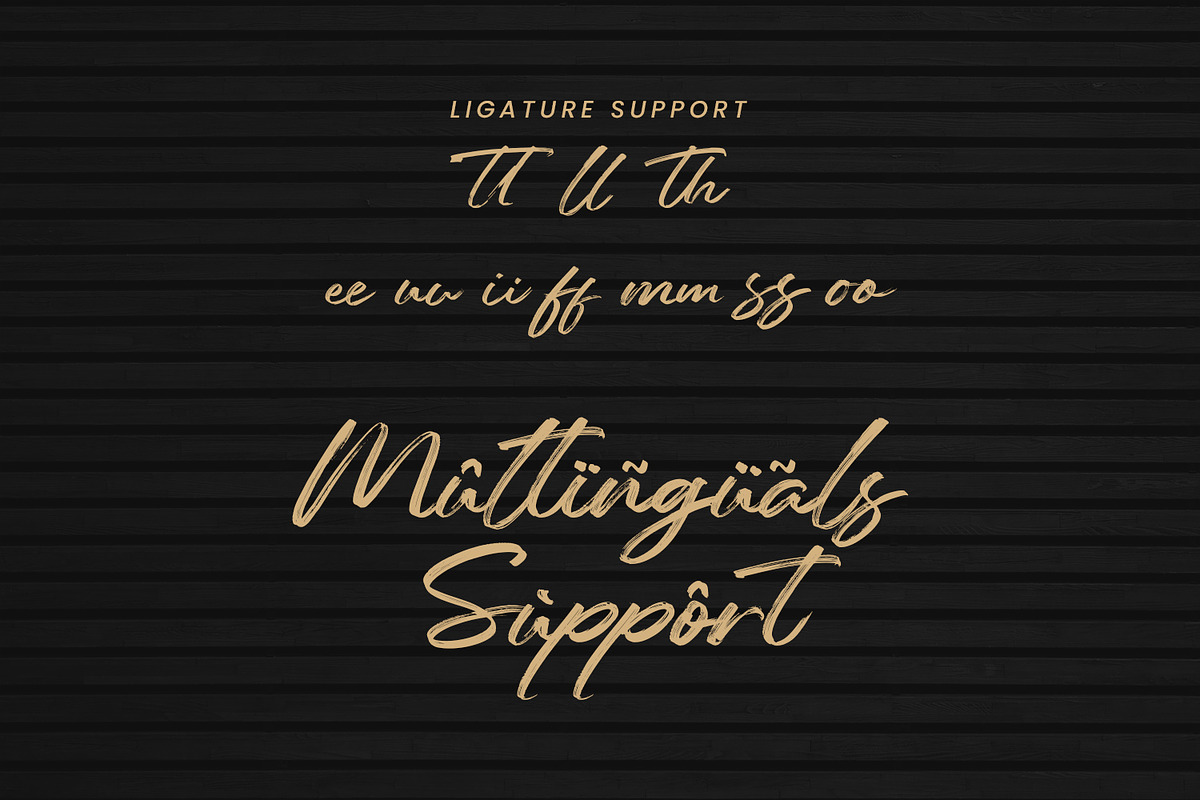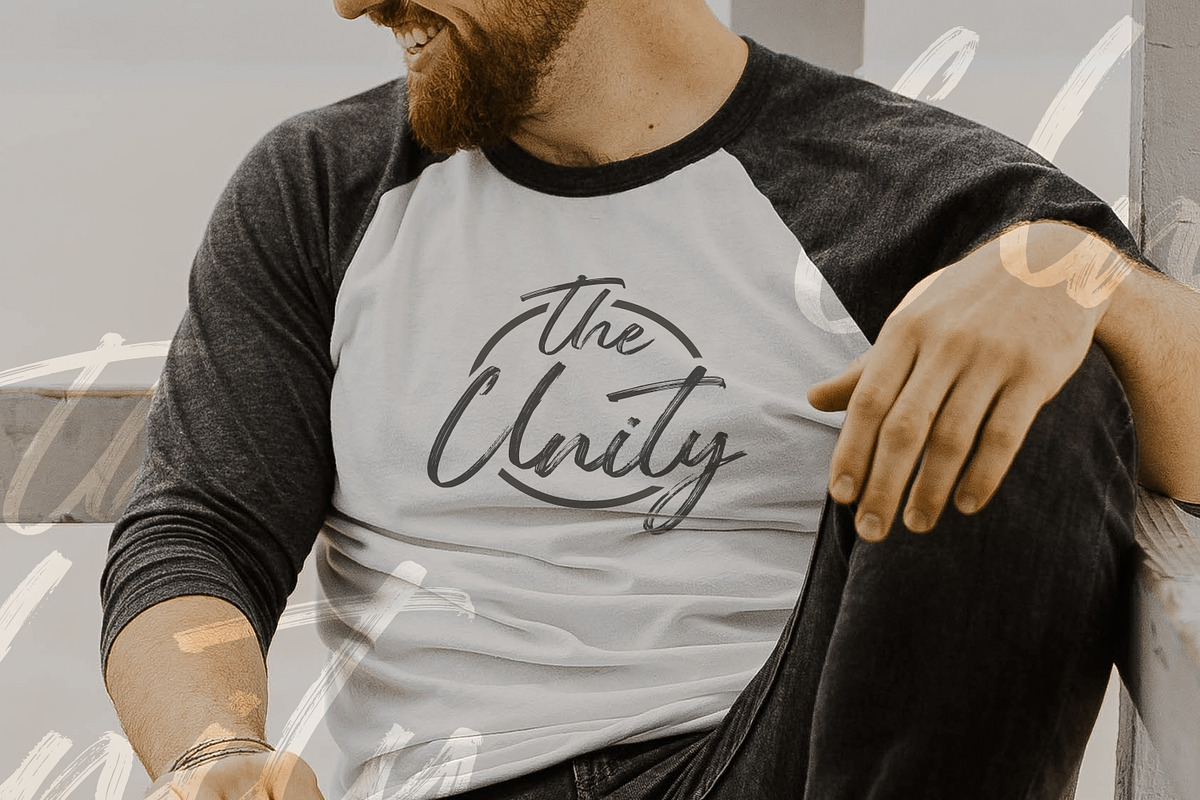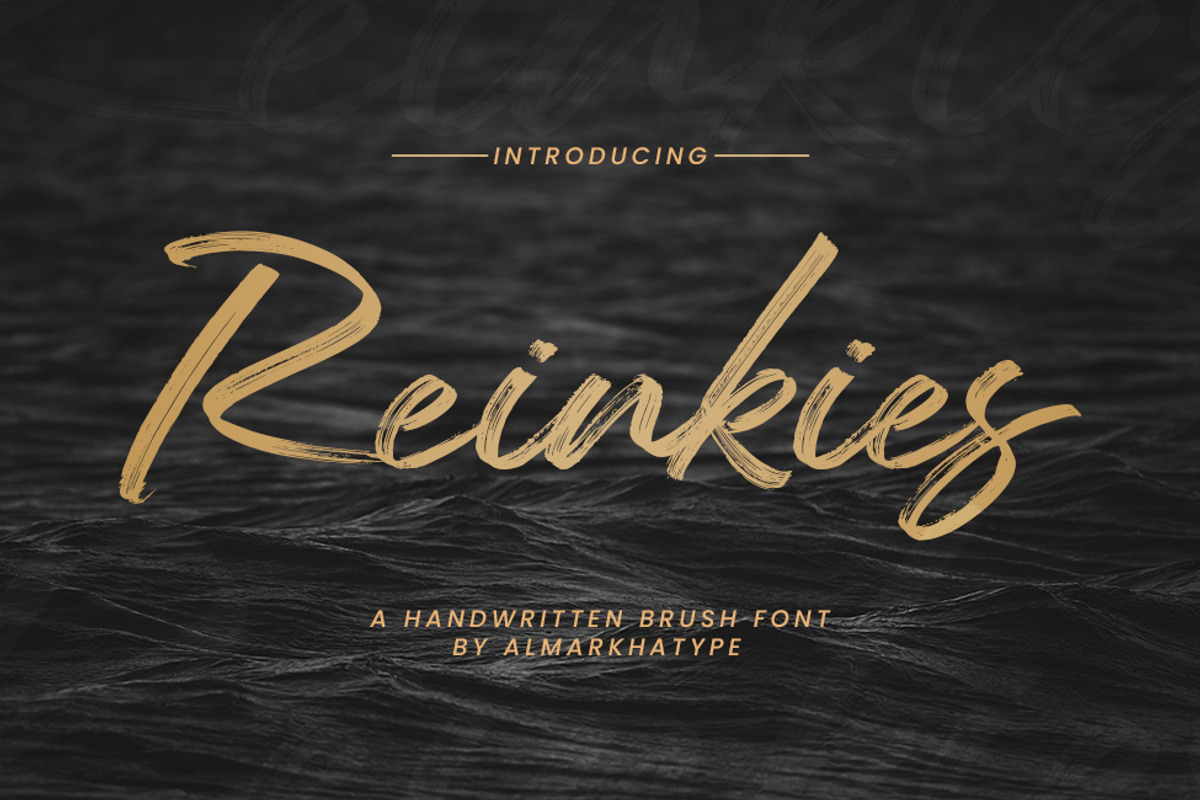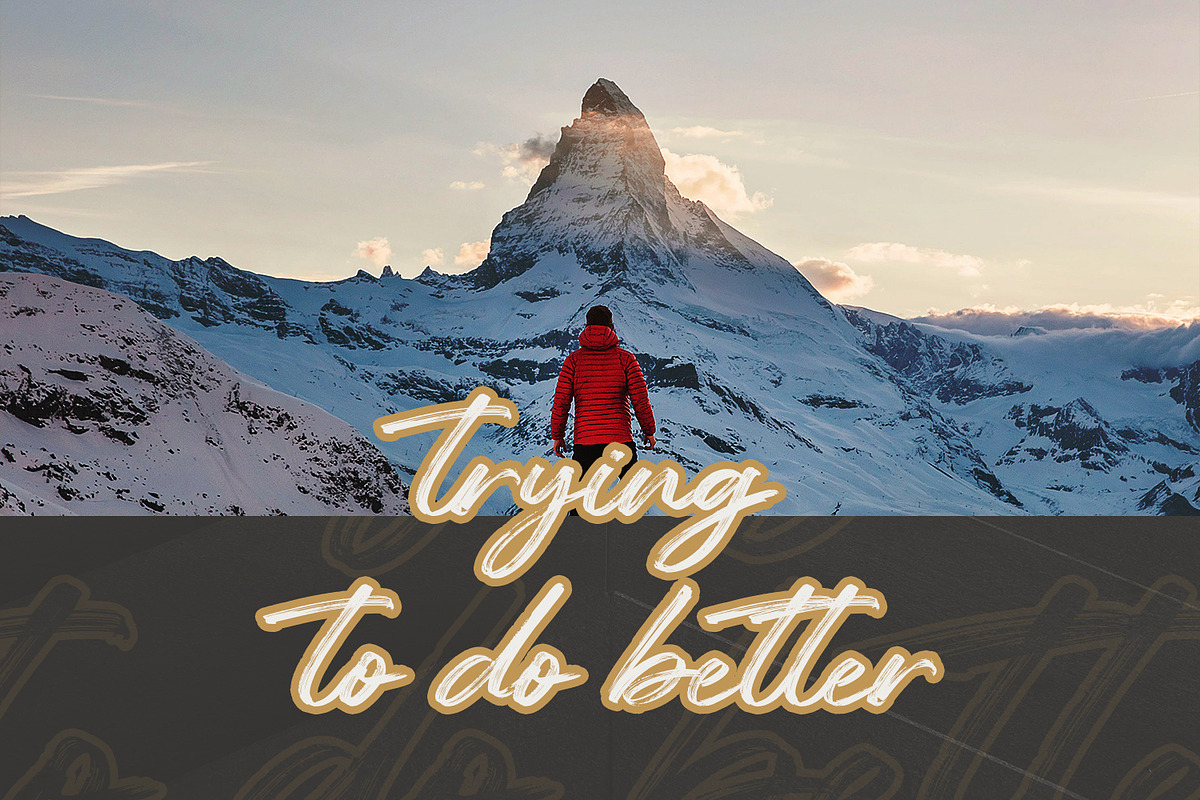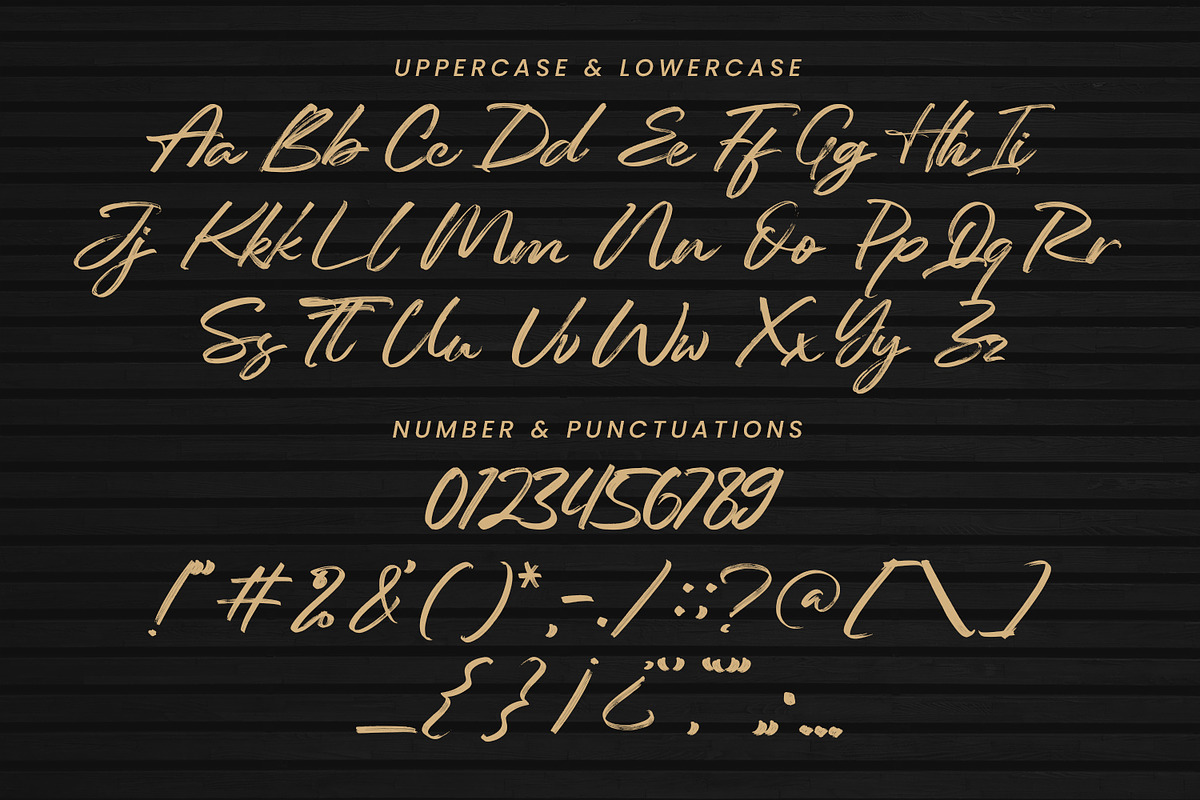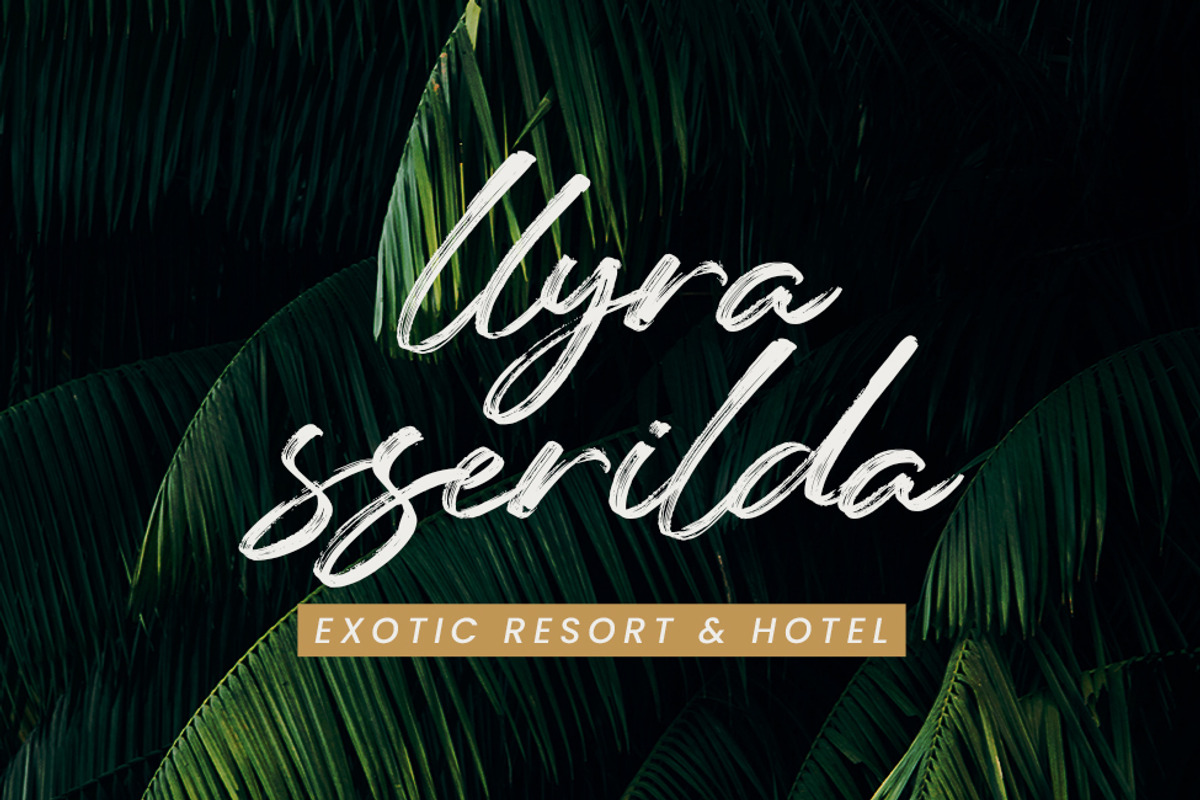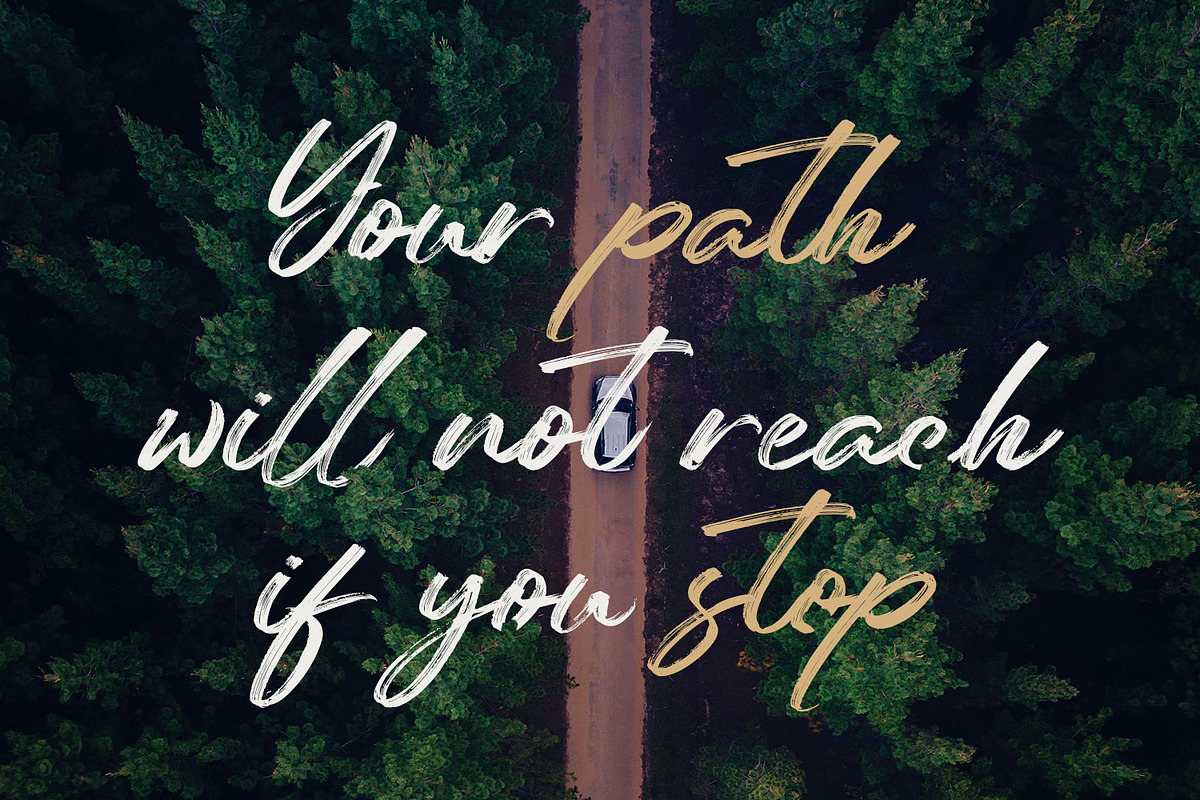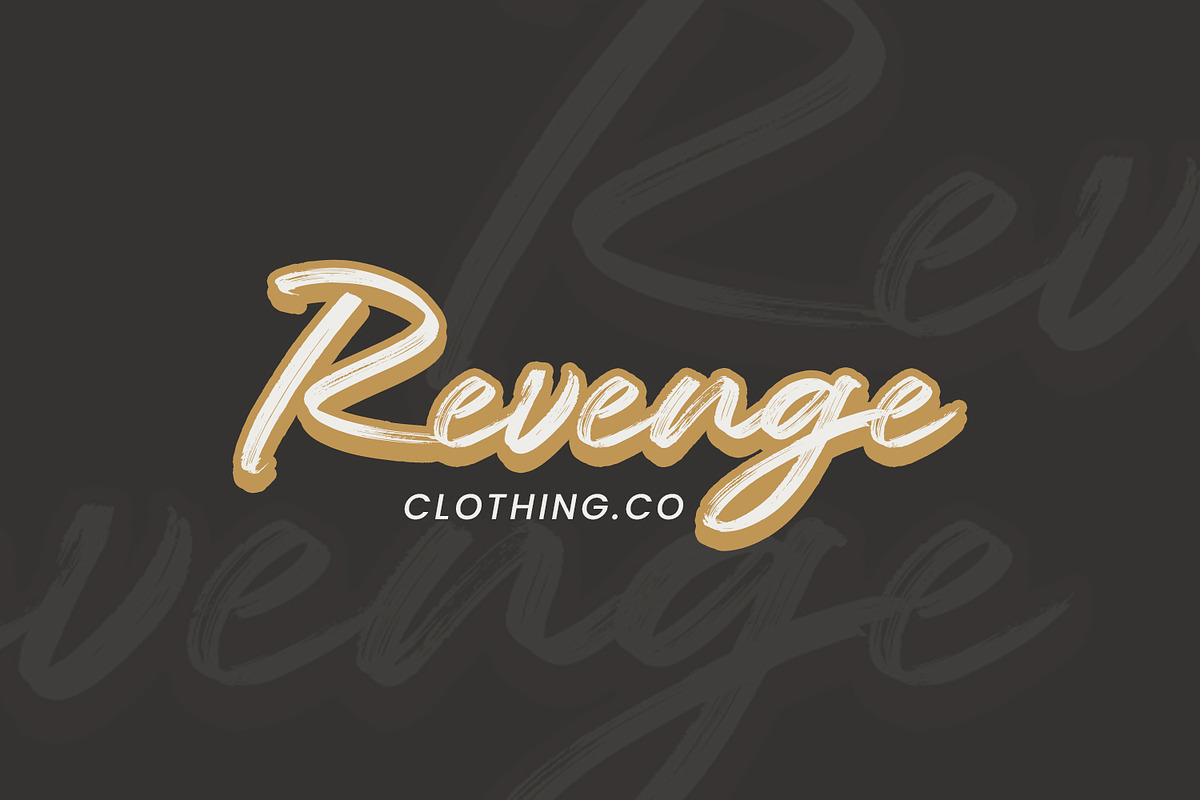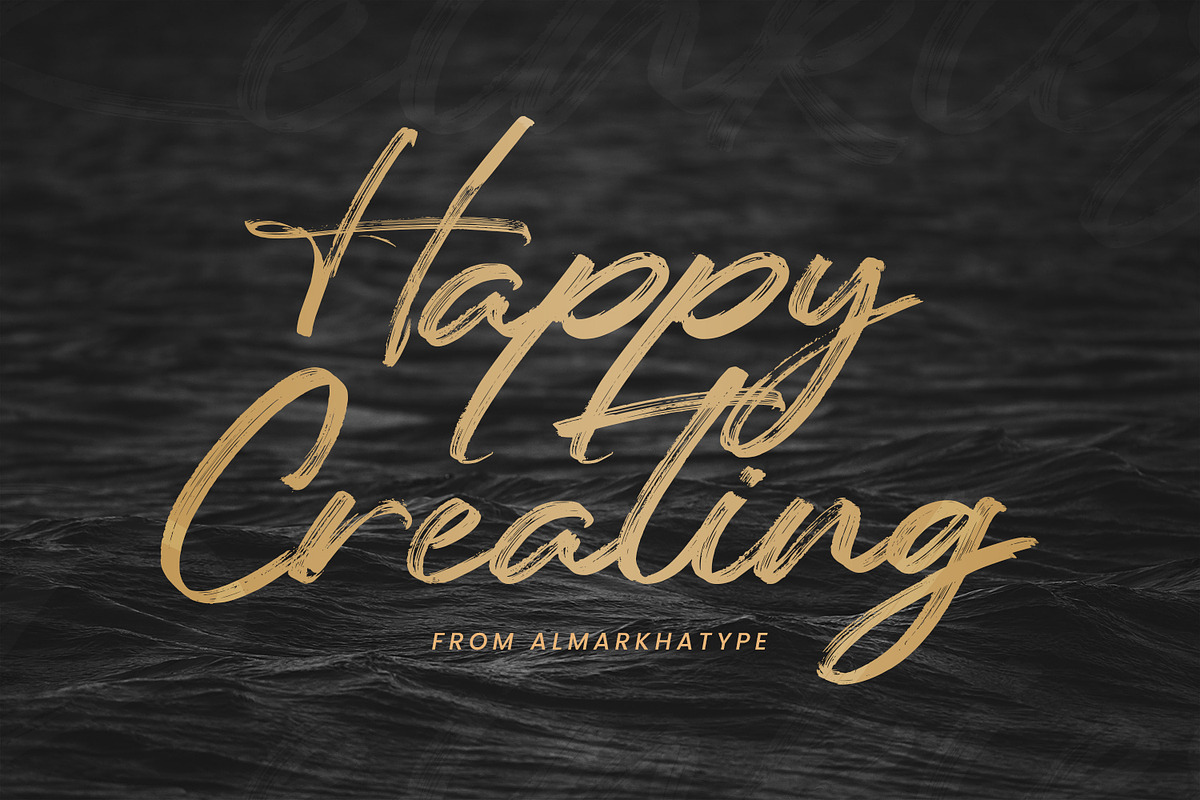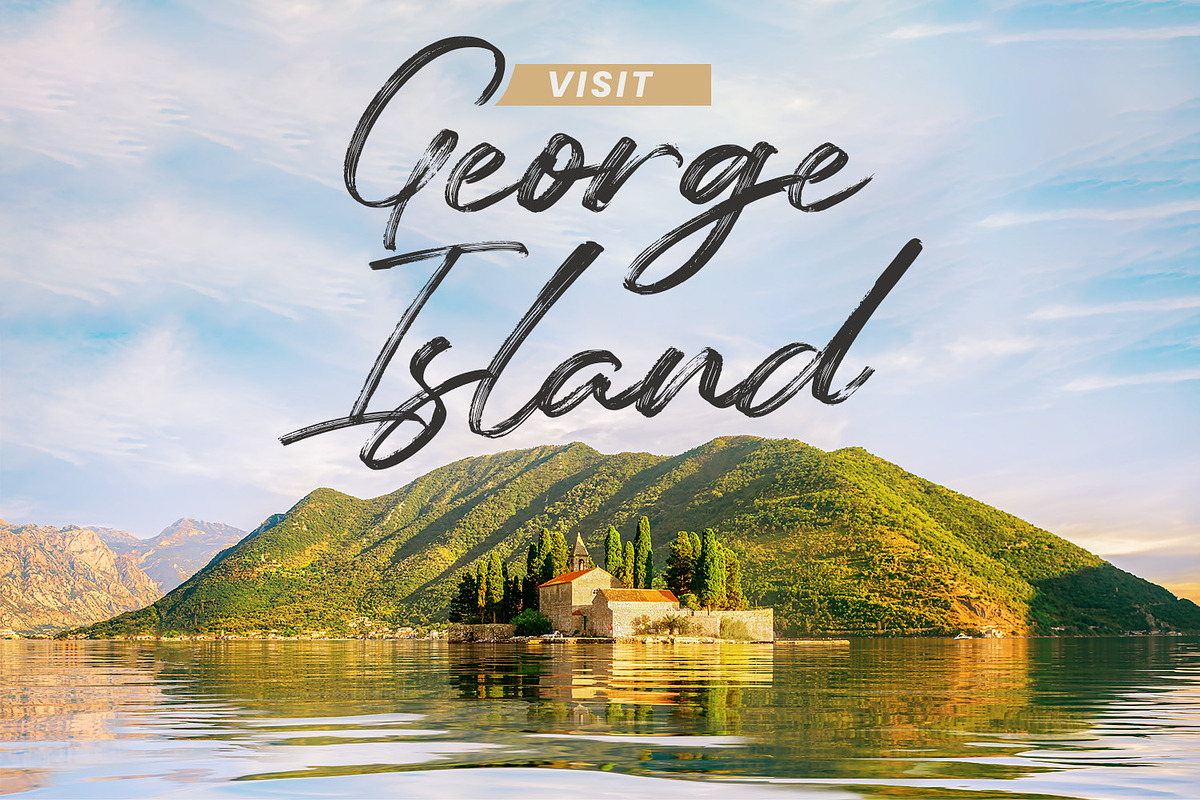
Reinkies - Authentic Brush Script
Introducing Reinkies - Brush Script is a Authentic brush script that is written casually and quickly. Letters are made with brushes on paper. Then scanned and carefully drawn into vector format. That is why Reinkies has charming, authentic and relaxed characteristic more natural look to your text with a more natural look to your text. You can activate Ligature OpenType panel, ReinkiesPerfect for designs,branding projects, Logo design, Quotes product packaging